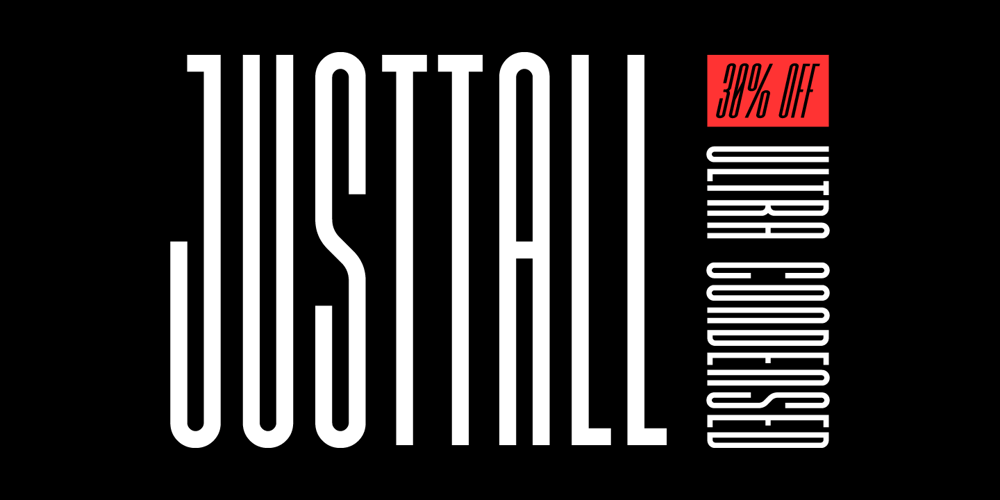
JustTall Font Family was designed by Abhishek Junghare and published by OneSevenPointFive. JustTall contains 2 styles and family package options. JustTall is an ultra condensed typeface with open type features, 400+ characters with 80+ languages support made for tight spaces. Useful for – Logos for companies with really long names Different texts with very little space available Very tall design types Give feedback: https://bit.ly/3FlmhDS